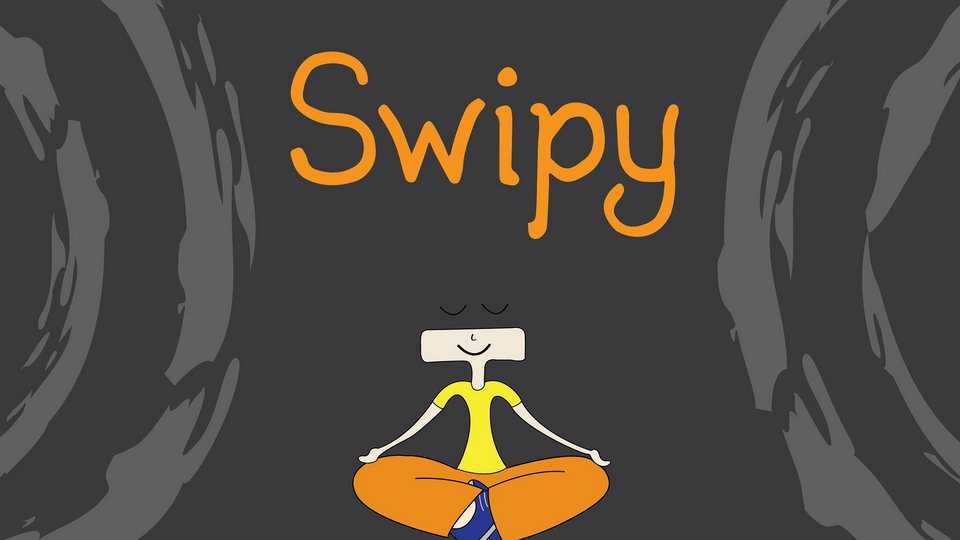
Download Swipy font, the cartoon character turned typeface. Swipy gives a personal writing feel that will make the designs natural and humanist (swiping the minds of viewers).